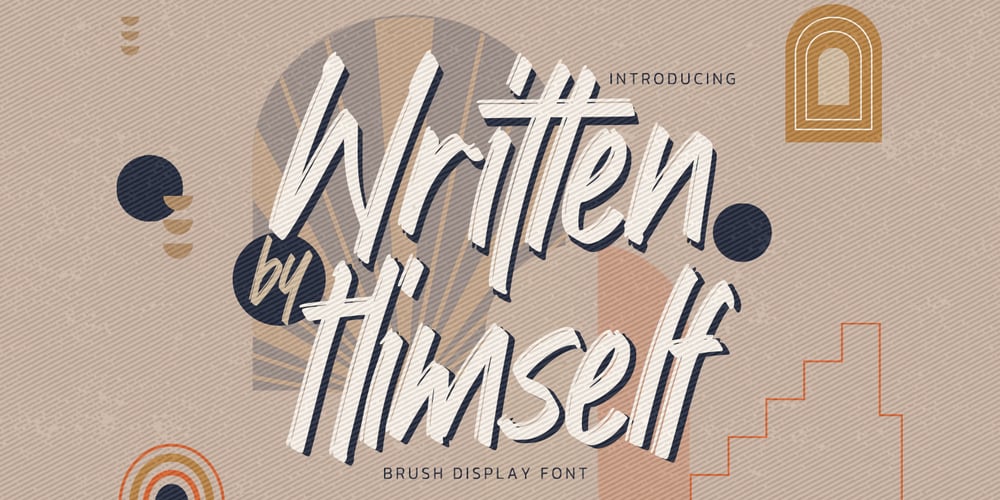
Written By Himself
Written By Himself font
Written By Himself Font Family was designed by Abdul Malik Wisnu, Anang Fibriyanto and published by Gassstype. Written By Himself contains 1 styles and family package options. Hello Everyone, introduce our new product font Written by Himself is a Brush Display Font. This is a Textured Natural Style and classy style with a clear style and dramatic movement.This font Written by Himself is great for your next creative project such as logos, printed quotes, invitations, cards, product packaging, headers, Logotype, Letterhead, Poster, Design this font is great for your creative projects such as watermark on photography, and perfect for logos & branding, invitation,advertisements,product designs, stationery, wedding designs,label ,product packaging, special events or anything taste.That is has charming, authentic and relaxed characteristic more natural look to your text It also features a wealth of special features including Ligatures glyphs.